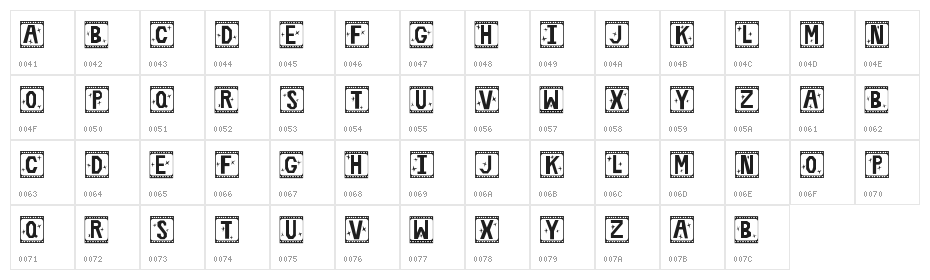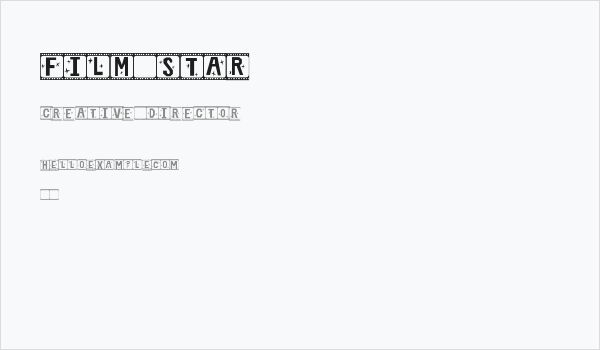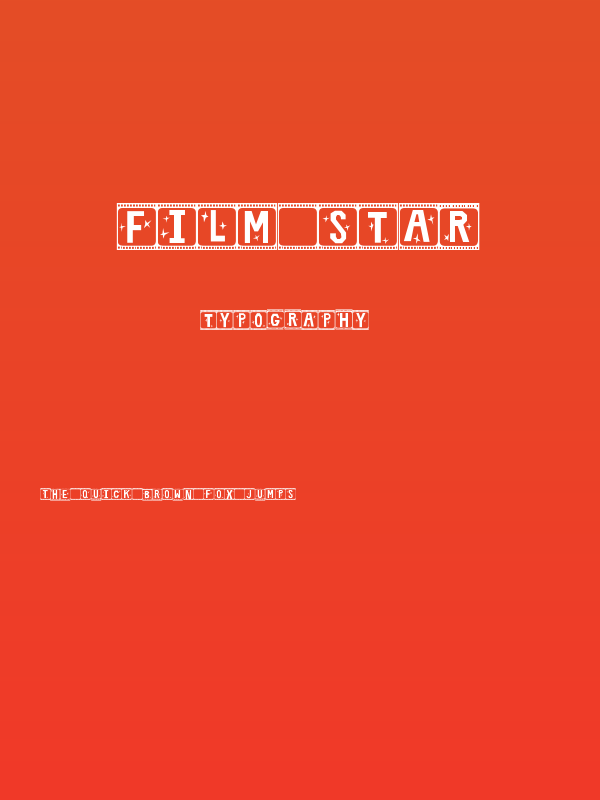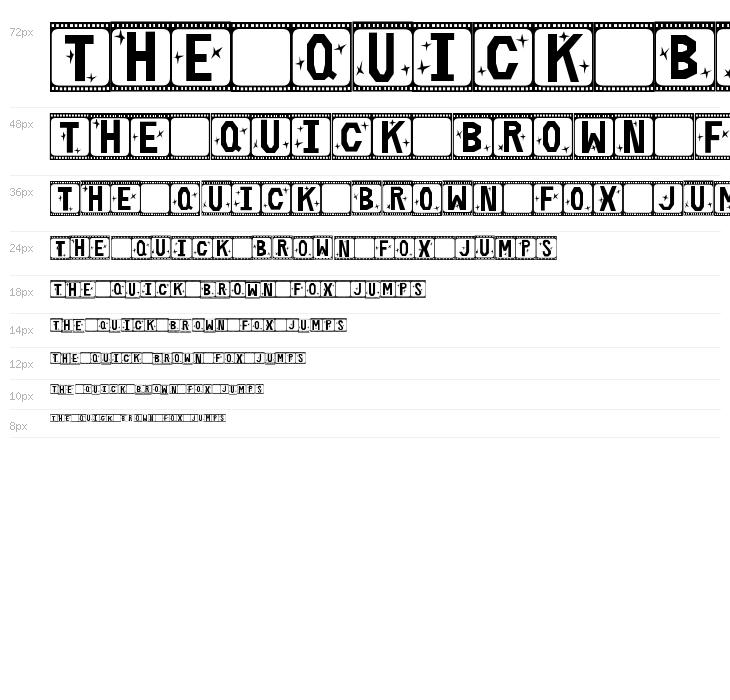
Film Star Font
Film Star Description
This font is a decorative typeface that captures the essence of classic cinema with its filmstrip border surrounding each character. The letters are bold and uppercase, featuring a playful and nostalgic style reminiscent of vintage movie posters. Each character is adorned with small star-like accents, adding a touch of glamour and Hollywood flair. The design is both eye-catching and thematic, making it ideal for projects that require a cinematic or retro aesthetic. The unique framing of each letter within a filmstrip gives it a distinct and memorable appearance, perfect for creative and thematic uses.
| Proposed Projects | Ideal for movie posters, film festival branding, retro-themed events, and entertainment industry marketing materials. |